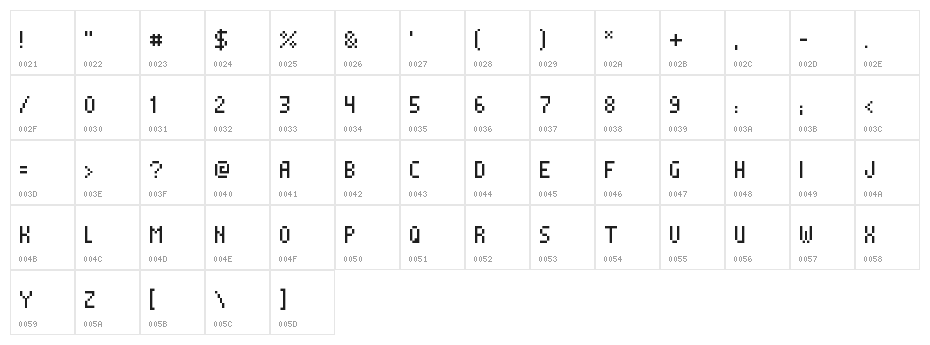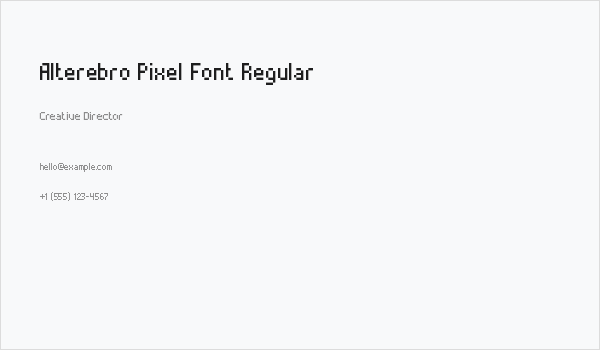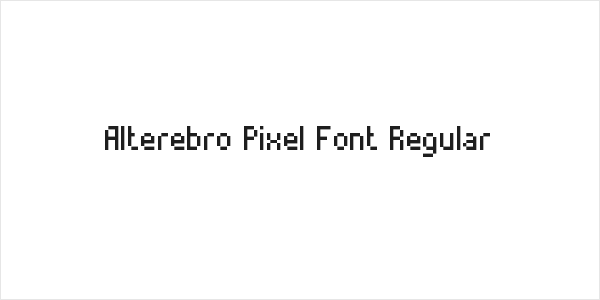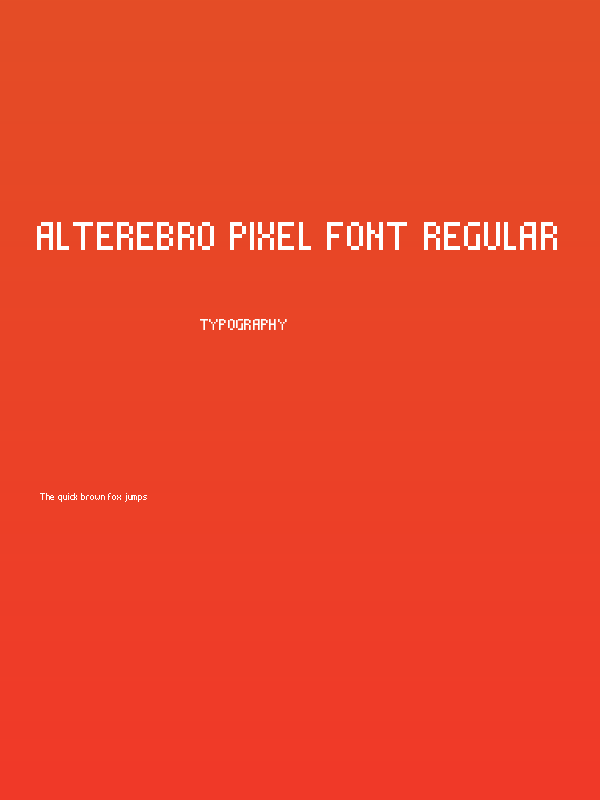
Alterebro Pixel Font Regular Font
Alterebro Pixel Font Regular Description
This font embodies a classic pixelated style reminiscent of early digital displays and retro video games. Each character is constructed with a grid-like precision, giving it a blocky, geometric appearance. The uppercase and lowercase letters maintain a consistent height, contributing to a uniform and cohesive look. The numerals and special characters follow the same pixelated design, ensuring visual harmony across all elements. This font's nostalgic appeal is perfect for projects that aim to evoke a sense of vintage digital aesthetics.
| Use Case | Logos, Headlines, Digital Art |
| Proposed Projects | Perfect for video game design, retro-themed posters, digital art projects, and any creative work that seeks to capture the essence of early computer graphics. |